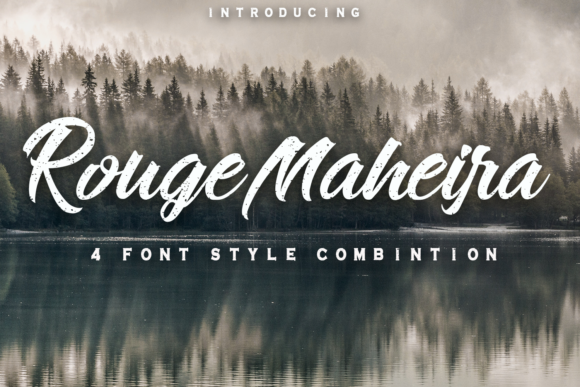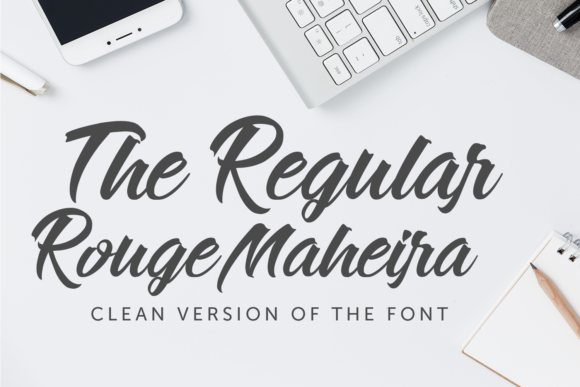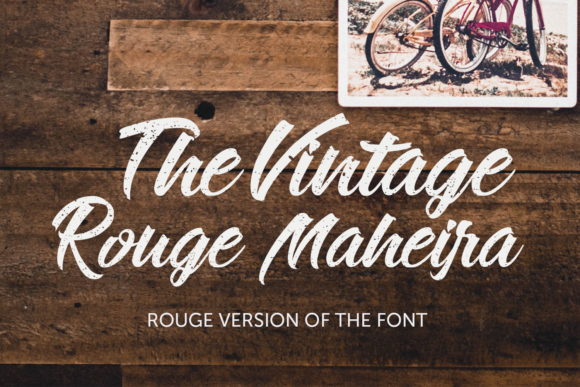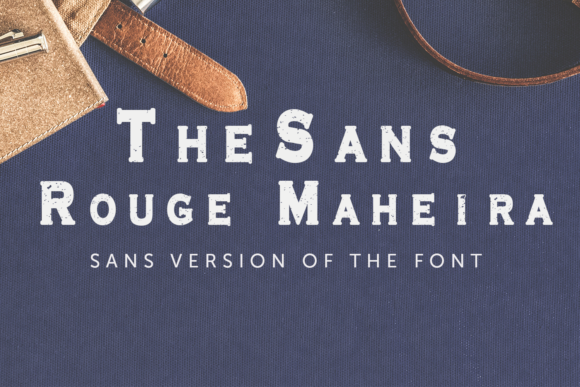
Rouge Maheira Font
About Rouge Maheira Font
The Rouge Maheira is a cool font. It comes with 4 unique variations: regular, sans, italic, and vintage. It’s a great choice for watermarks, signature, quotes, albums, and much more! From business cards to watermarks, The Roughe Meheira is here to elevate your work to the highest level.